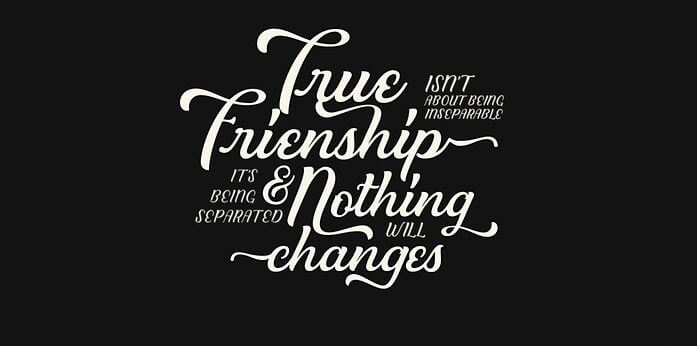
Clarkson Font
Clarkson font is a versatile font that would work in physique copy as well as titles, and there may be an understated elegance to it that we really like.
It looks like aventurina script has a powerful script sans serif typeface that makes your designs notable and stylish. It is to be had at no cost download.
Style Of Clarkson Font